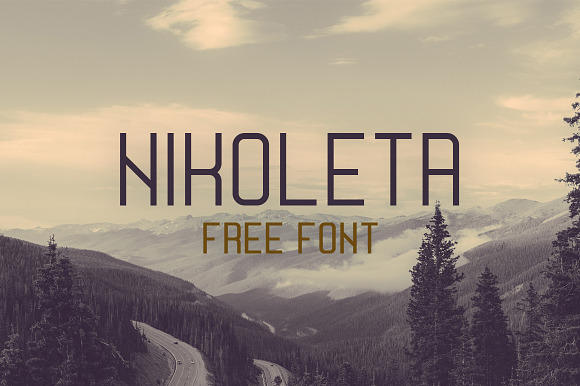
Nikoleta Free Font
Nikoleta Typeface was my very first font created back in 2015. It had the most basic character set without any language support.
With multilingual support it covers Latin, Central European, Cyrillic, Turkish etc.
- Now Nikoleta Typeface V2 has more then 300 characters that includes ligatures, diacritics, symbols and more.
Why Nikoleta Free Font is worth a look
Nikoleta Free Font by BorisG fits naturally into Branding, posters, packaging, typography.